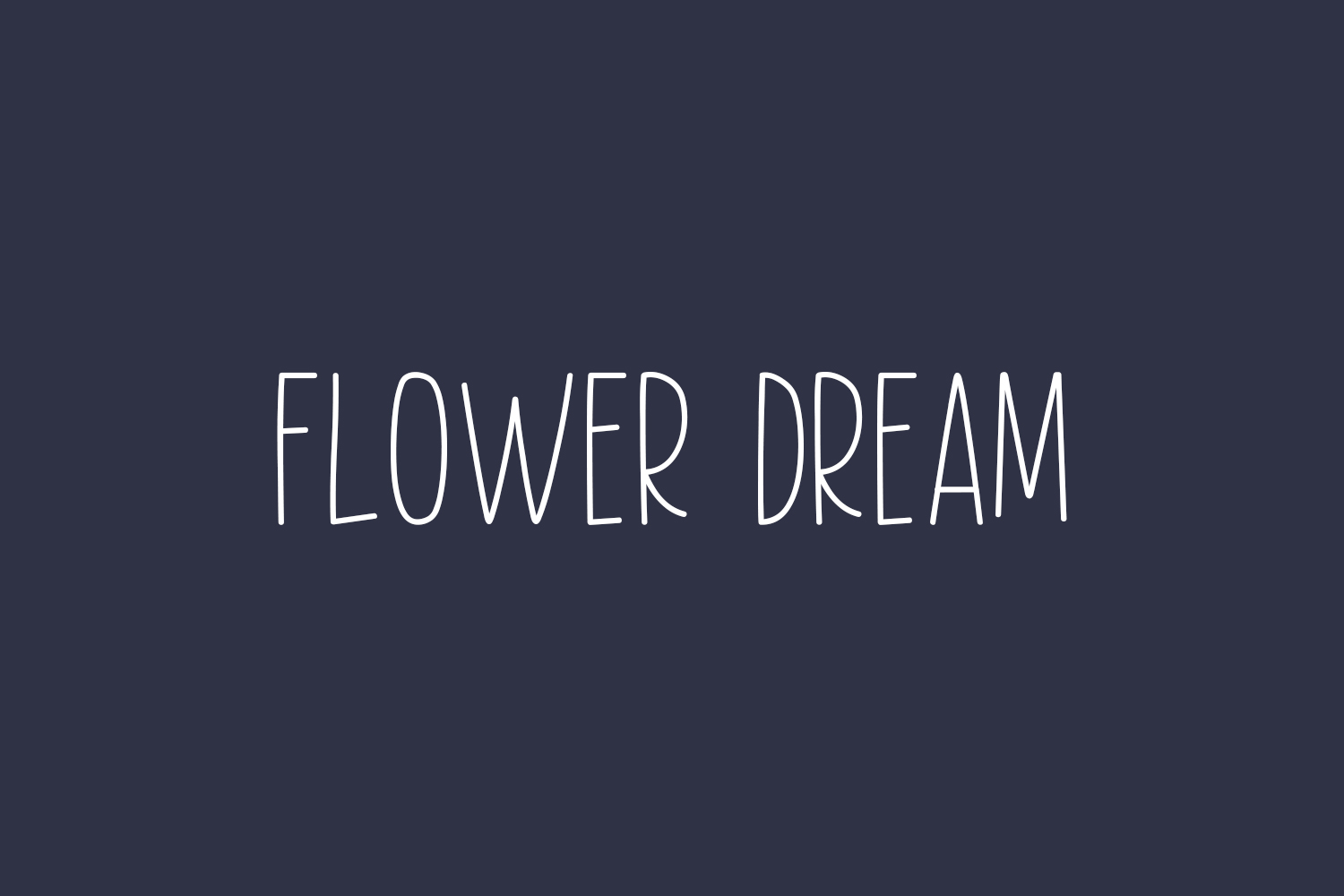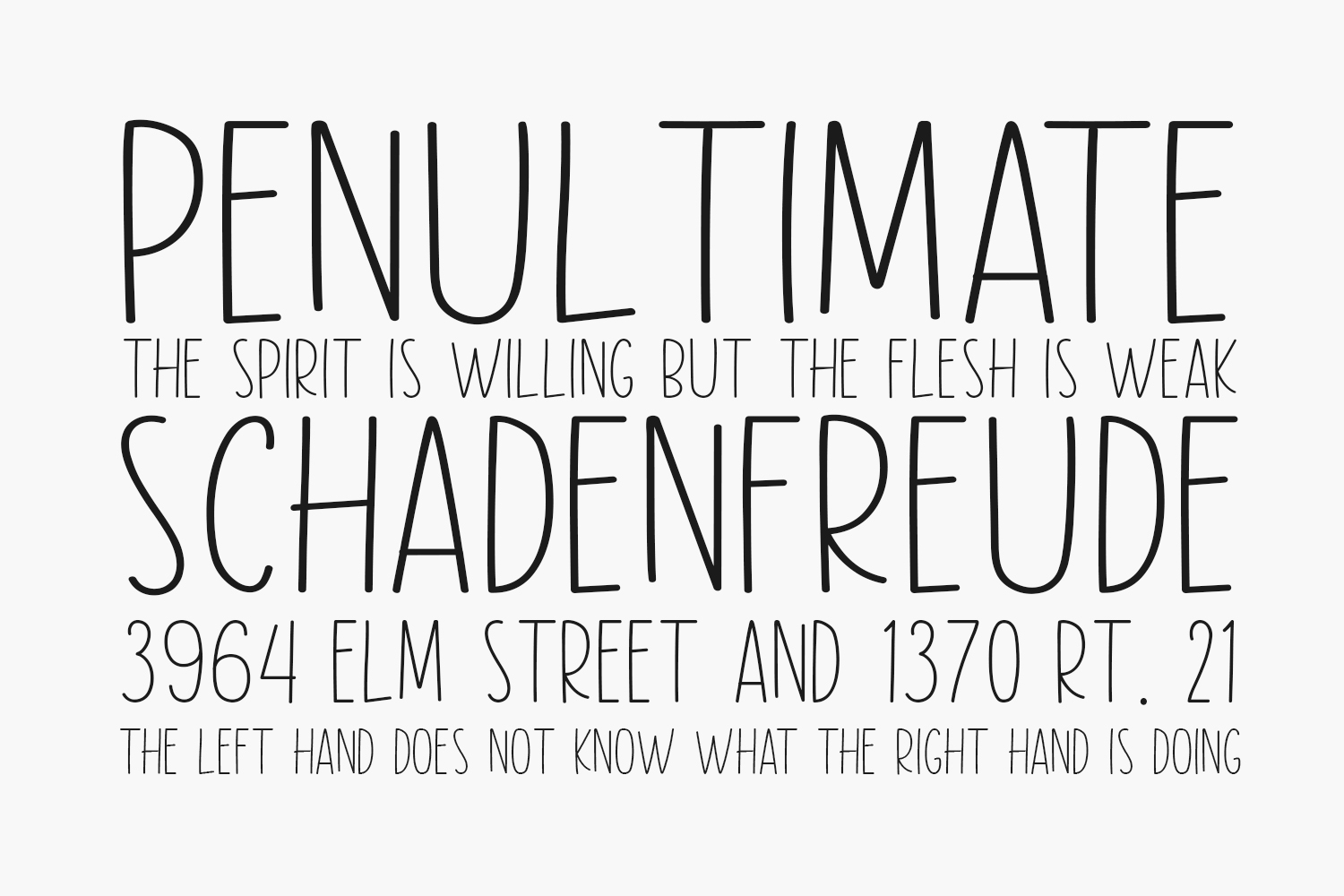
Flower Dream Free Font Family is a skinny and sweet handwritten font. Simple but with a strong visual effect, this font will instantly make your creation more appealing than any others. Flower Dream Free Font Family was designed by Manjali Studio and is free for personal use only. Please purchase the full version for commercial use.